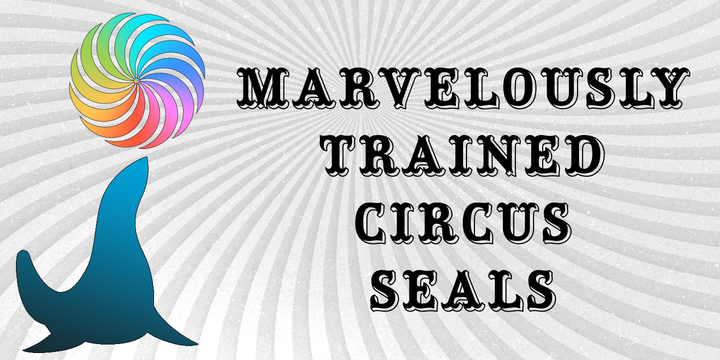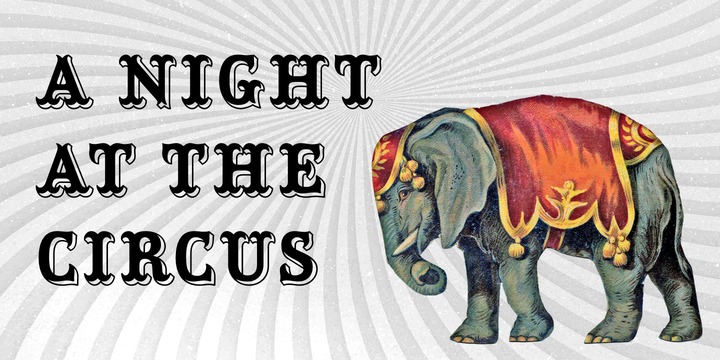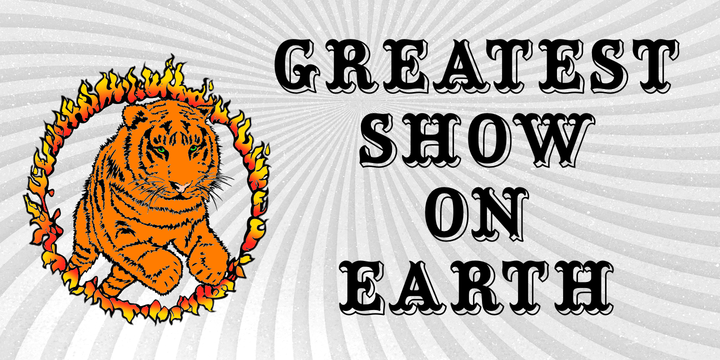
Circensis Font
Picking up a concept of Fritz Richter, Circensis is the realization of an adorned diplay font which had not been hitherto available, neither as a hot-metal font nor digitally. It is a great and legible font for circus and variety ads and posters, as well as for films, cafés, ice-cream parlors etc.